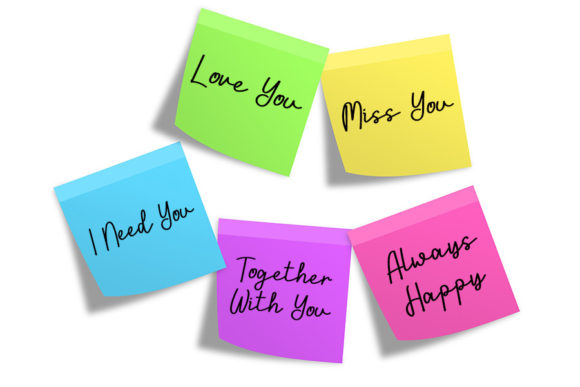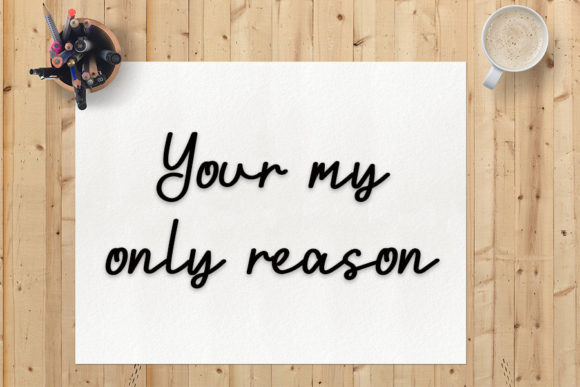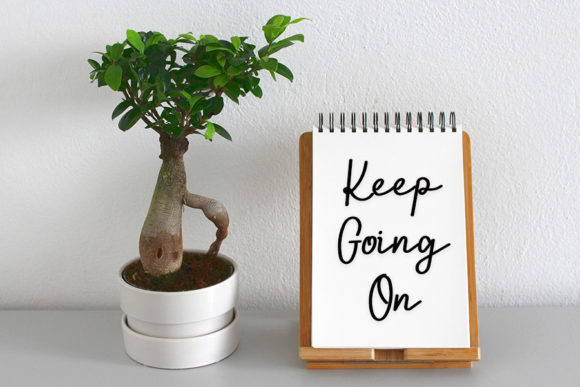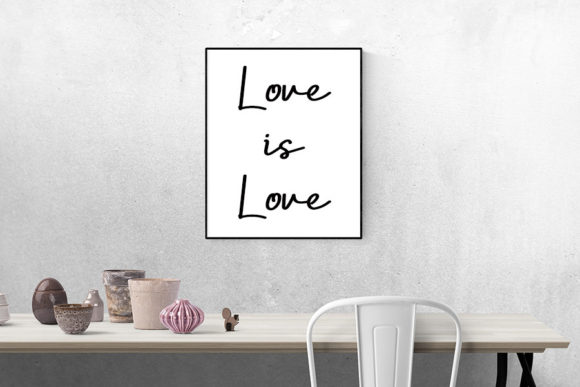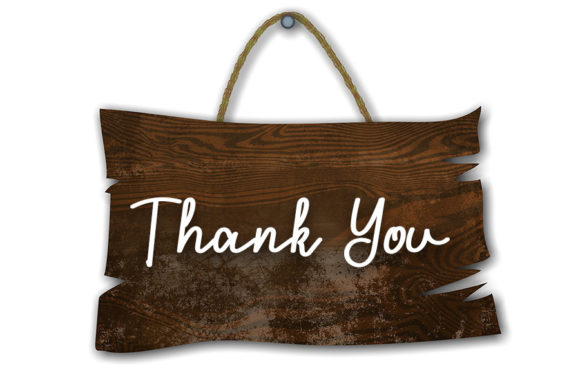
Introduction to Smart Signature Font
Have you ever been working on a creative project, pouring your heart and soul into it, and then the final touch – a signature – just doesn’t seem to fit? That’s where the Smart Signature Font comes in, adding a touch of elegance to your designs and making them truly shine.
As a designer, you’re constantly on the lookout for that perfect design resource to elevate your work. The Smart Signature Font is just that – a high-quality, delicate, and flowing handwritten font that adds a personal touch to any project. With its beautiful and well-balanced characters, it’s the perfect match for a wide range of designs, from logos to invitations.
Key Features of Smart Signature Font
- High-quality design resource with a unique, modern aesthetic suitable for creative projects and personal branding.
- Comprehensive character set, including uppercase and lowercase letters, numbers, and special characters, making it an ideal choice for everyday use.
- Perfect for creating professional-looking signatures, logos, and branding materials that exude sophistication and style.
Honest Review: Smart Signature Font
Here are some of the things that work well with the Smart Signature Font:
- Customizable: The font is highly customizable, allowing me to tweak its style and size to fit my project’s requirements.
- Transparency: The font has a transparent background, making it easy to integrate with other design elements.
- High quality: The font is designed with high-quality graphics, ensuring that it looks crisp and clear even at large sizes.
However, there are a few limitations that I’d like to mention:
- Limited characters: The font only comes with a limited set of characters, which can be a problem for longer text-based projects.
- Not suitable for print: The font is designed for digital use and may not print well due to its transparent background and high-resolution requirements.
Overall, the Smart Signature Font is a great design resource that works well for digital projects, such as social media graphics, presentations, and websites. While it has its limitations, I would still recommend it to designers looking for a modern and customizable font. ⚠️
Smart Signature Font
Tips for Getting the Most Out of the Smart Signature Font
To get the most out of the Smart Signature Font, be sure to use it on a transparent background and experiment with different font sizes and colors to create a unique look.
The Smart Signature Font is perfect for use in business cards, social media graphics, and other creative projects where a high-quality, transparent font is needed.